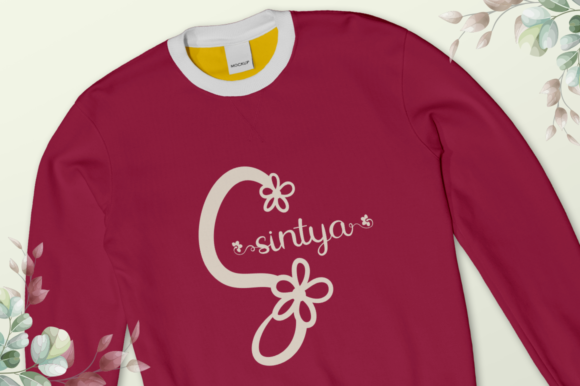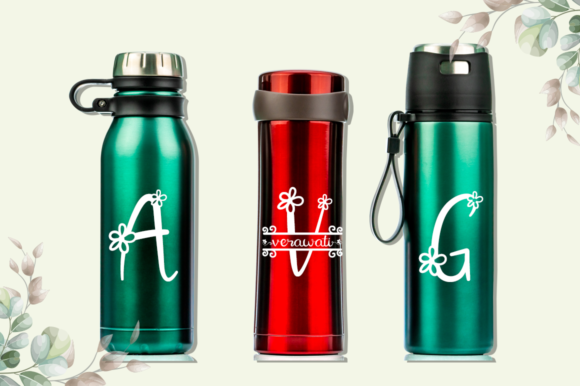
Flower Monogram Font
db-ku.com - Script & Handwritten -- Flower Monogram is a sweet and beautiful handwritten font. It looks as if it was the handwriting of a child, and as a result, this font will be the perfect choice for writing letters to Santa or adding a touch of innocence to your creations.